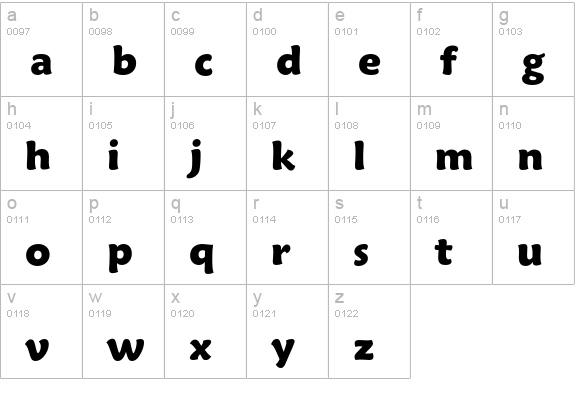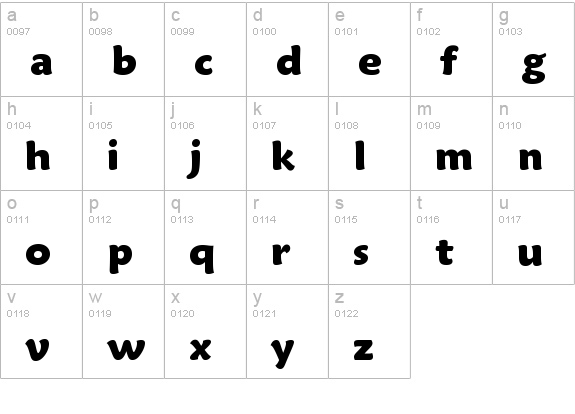
Maiandra Black Font Details
Maiandra Black is a maximum-weight, dramatic variant in the Maiandra typeface family \xE2\x80\x94 well suited to maximum-impact headlines, posters, and packaging.
Introducing the exquisite Maiandra Black font, a true epitome of elegance and sophistication. With its bold and confident letterforms, this font exudes a sense of strength and power, making it an ideal choice for headlines, titles, and branding materials. Maiandra Black combines the perfect balance of timeless beauty and modern flair, resulting in a font that effortlessly captures attention and leaves a lasting impression. Its wide and expansive characters are meticulously crafted to ensure legibility and readability, even at smaller sizes. But what truly sets Maiandra Black apart is that it is freely available to download at FontsMarket.com. Yes, you read that right! This exceptional font can be yours without any cost. This means that you can enhance your design projects with a premium typeface without breaking the bank. Whether you're designing a logo, creating eye-catching posters, or crafting stunning invitations, Maiandra Black will elevate your work to a whole new level. Its versatility allows it to seamlessly adapt to various design styles, from sleek and modern to vintage and classic. Go ahead and indulge in the beauty of Maiandra Black. Download it for free at FontsMarket.com and unlock a world of endless design possibilities. Let this remarkable font be the cornerstone of your creative vision, and watch as it effortlessly transforms your designs into works of art.